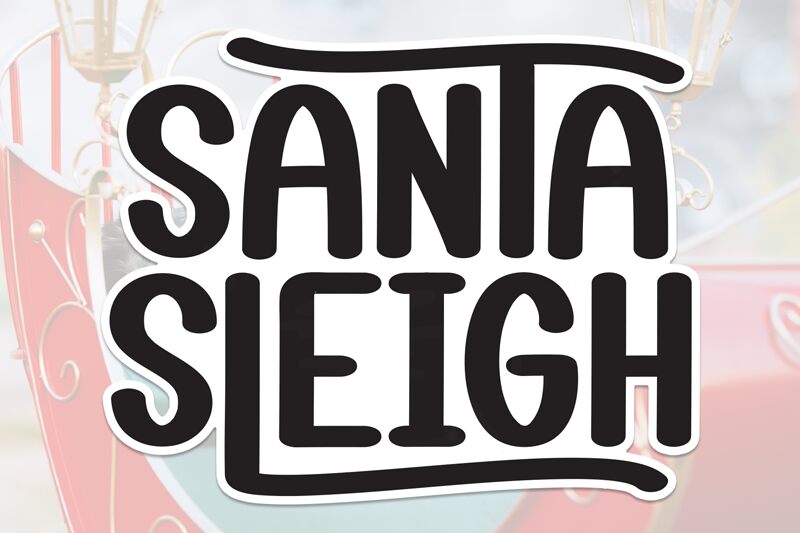
Santa Sleigh
Santa Sleigh font offers a charming handwritten vibe with rounded, vintage-inspired shapes and friendly, approachable appeal. Designed by Scratchones, it features elements that evoke a sense of nostalgia and warmth. This free handwritten font's cohesive appearance is embodied in even strokes that perfectly suit visually engaging creative projects you might be working on.
An ideal choice for logos, stationery products like business cards and letterheads, apparel items print design including t-shirts and caps branding needs are all covered with this font! Other suitable uses include restaurant menus/blogs/social media covers/Do-it-yourself digital planners covering plenty more potential applications out there!